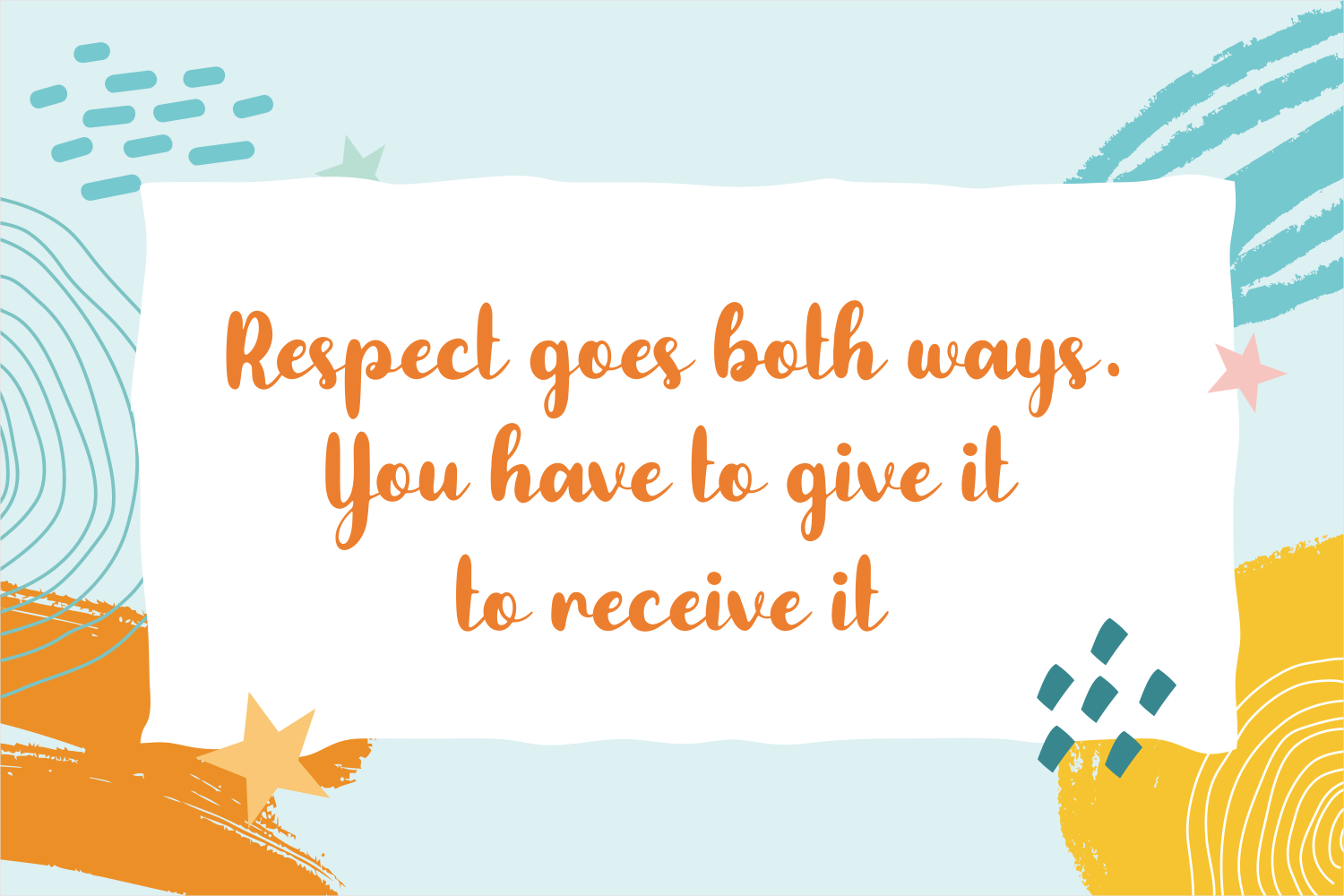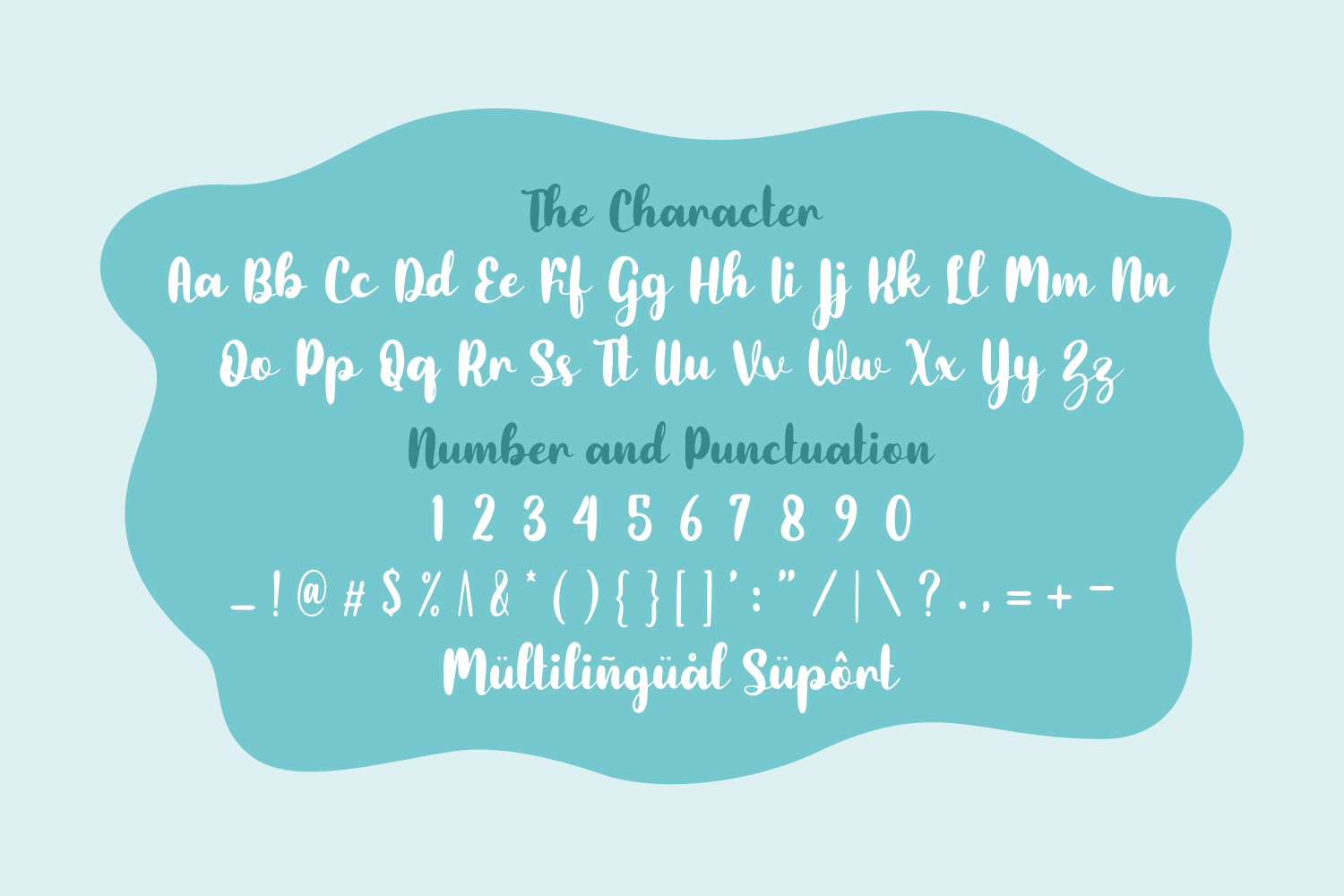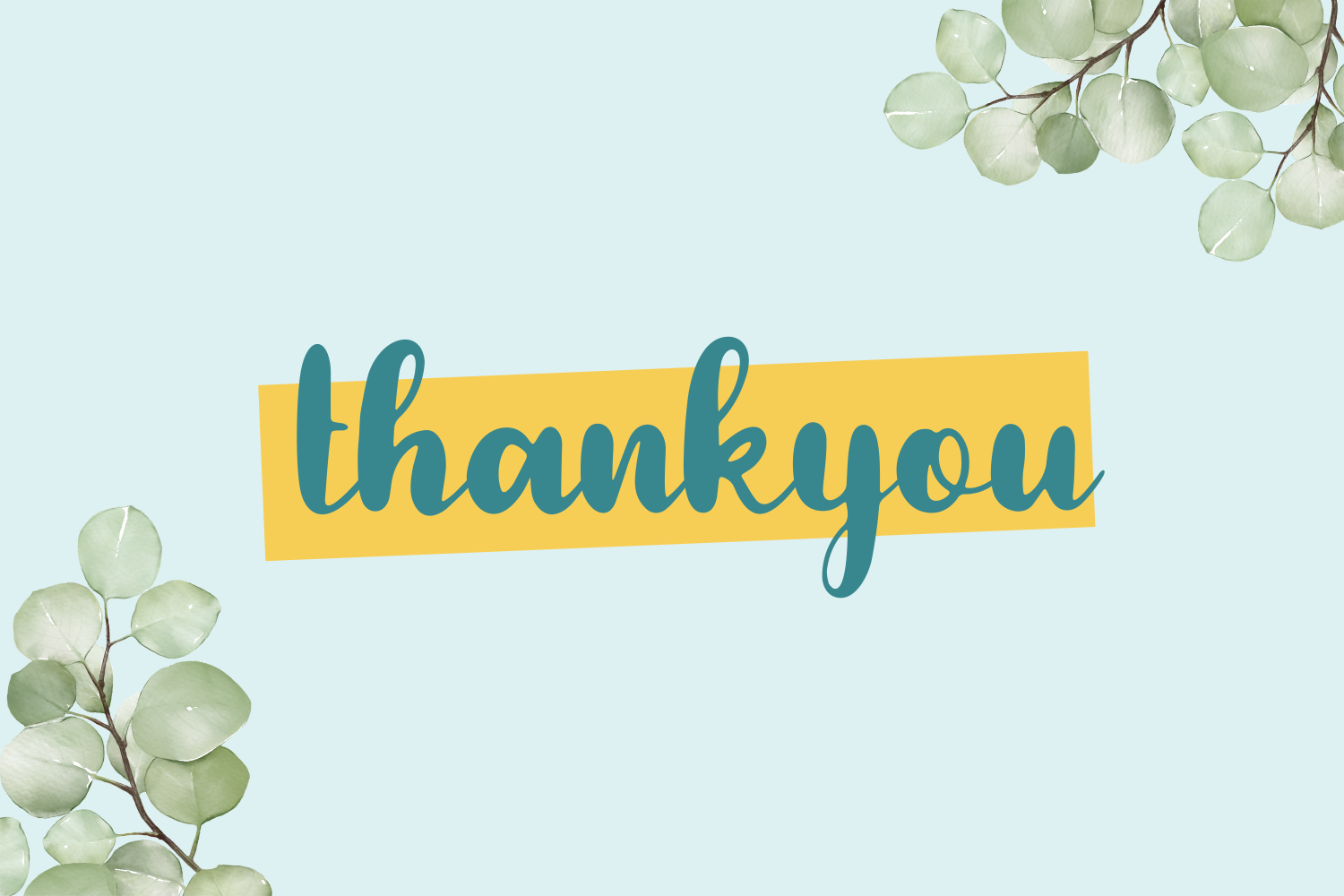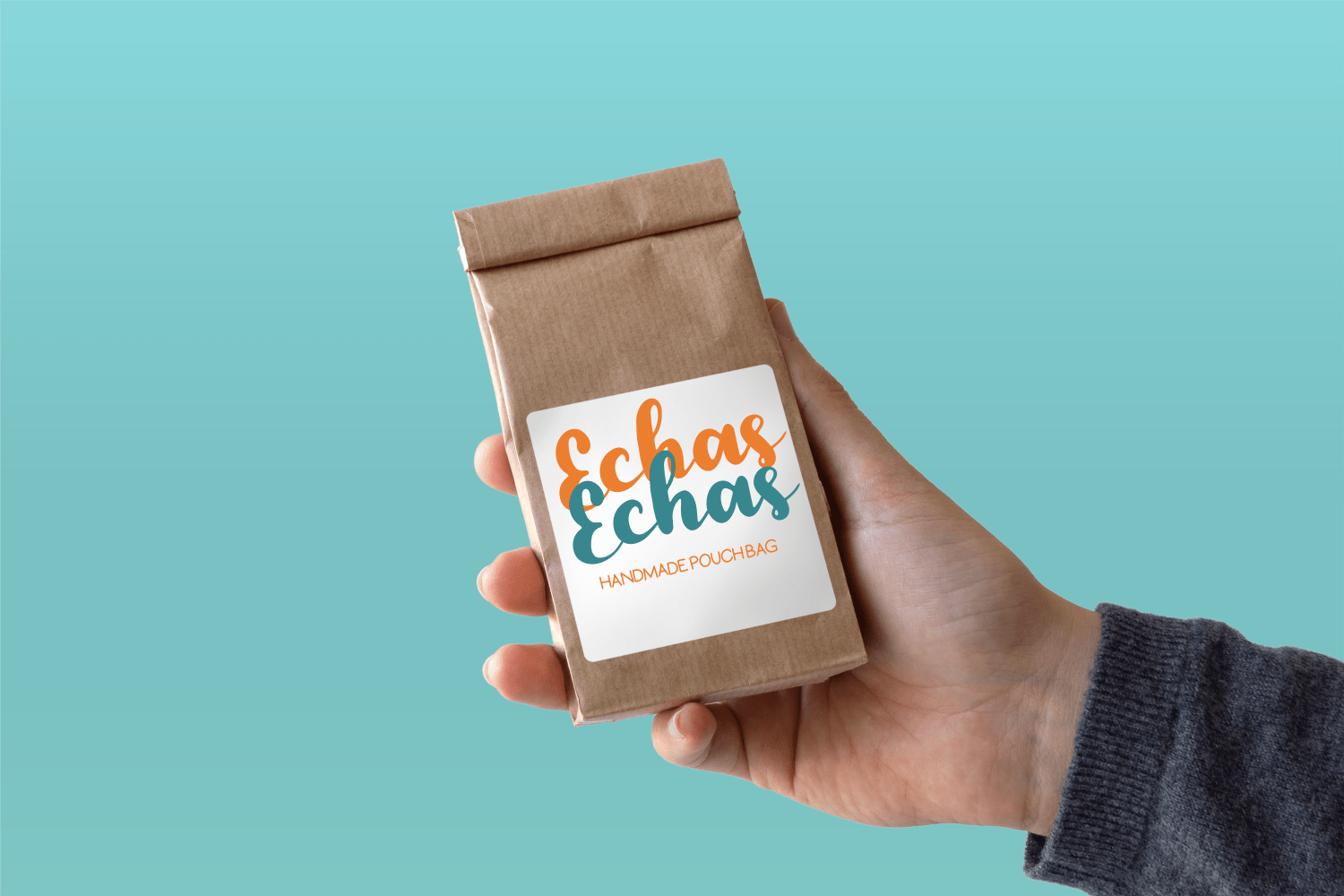
Craftone Font
Craftone Script Font is a fancy and elegant handcrafted font that create to impress your audience and make your branding shine.
Make your projects dance with this elegant and wonderful font wherever you use it. Use it for your headings, logos, ads, printed quotes, packaging, and even your website or social media branding.